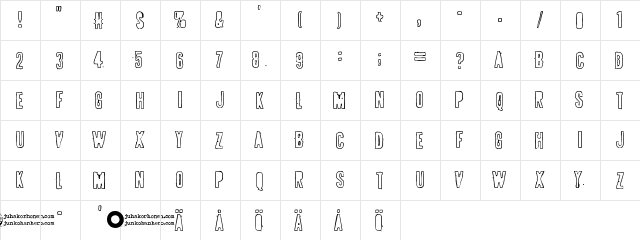
POLLUX9401 Regular
Design Context for POLLUX9401 Typeface
POLLUX9401 offers clean, dependable letterforms without strong stylistic allegiance, making it a practical choice for designers who need flexibility.